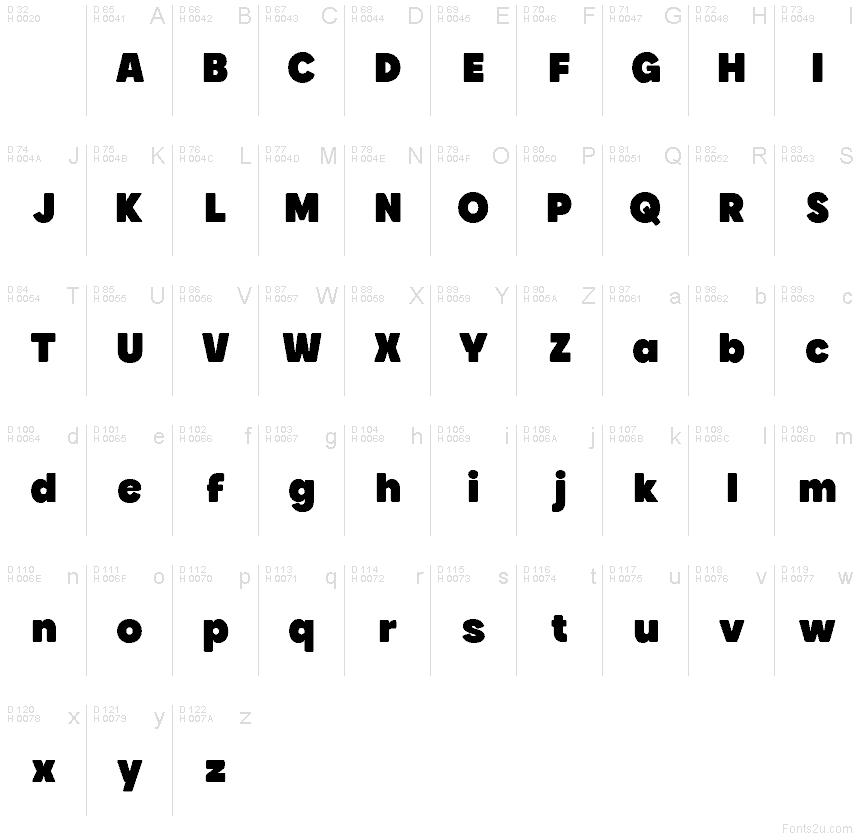
CS Geofrey Regular Demo
CS Geofrey font by Craft Supply Co. is a free bold rounded sans serif display font. It solves a common headache: grabbing attention without shouting. Thick, even strokes and pillowy curves give it real heft, while soft terminals and open counters keep it friendly and readable at a glance. The rhythm feels steady and confident—punchy enough for headlines, yet approachable for brands that want warmth over edge.
Using CS Geofrey, you can headline posters, logos, product packaging, social graphics, app splash screens, and event banners with instant clarity. This free font shines on big, high-contrast layouts and scales down surprisingly well for badges and stickers thanks to its generous forms. For a clean hierarchy, pair it with a light geometric sans for body copy, and add a touch of tracking when you need extra breathing room.